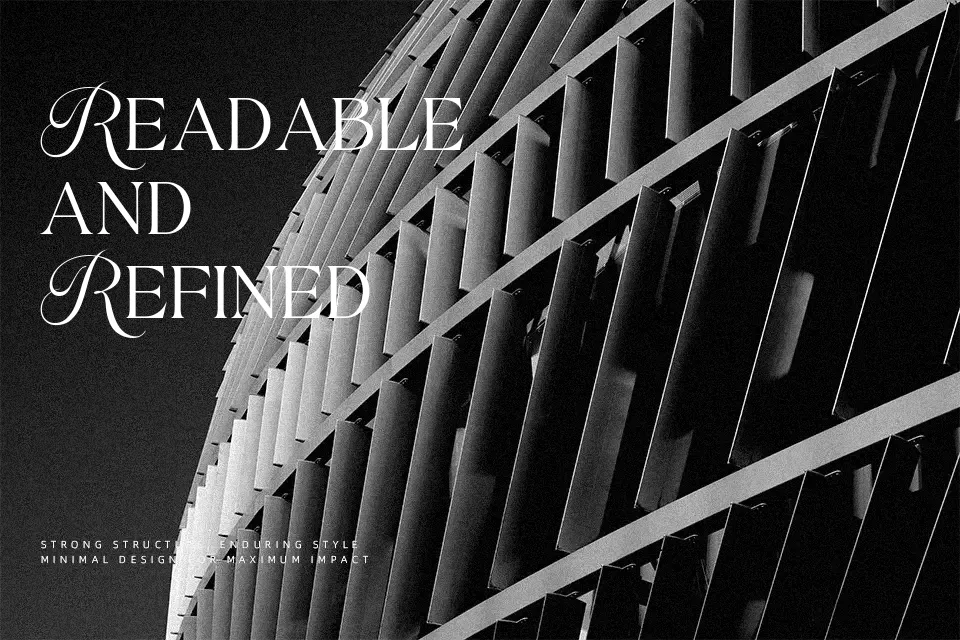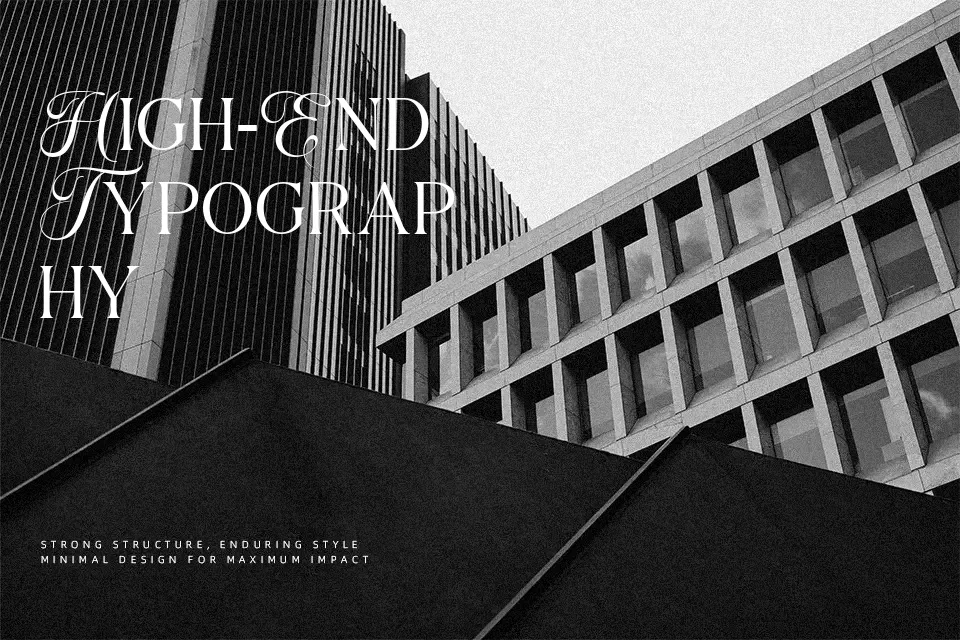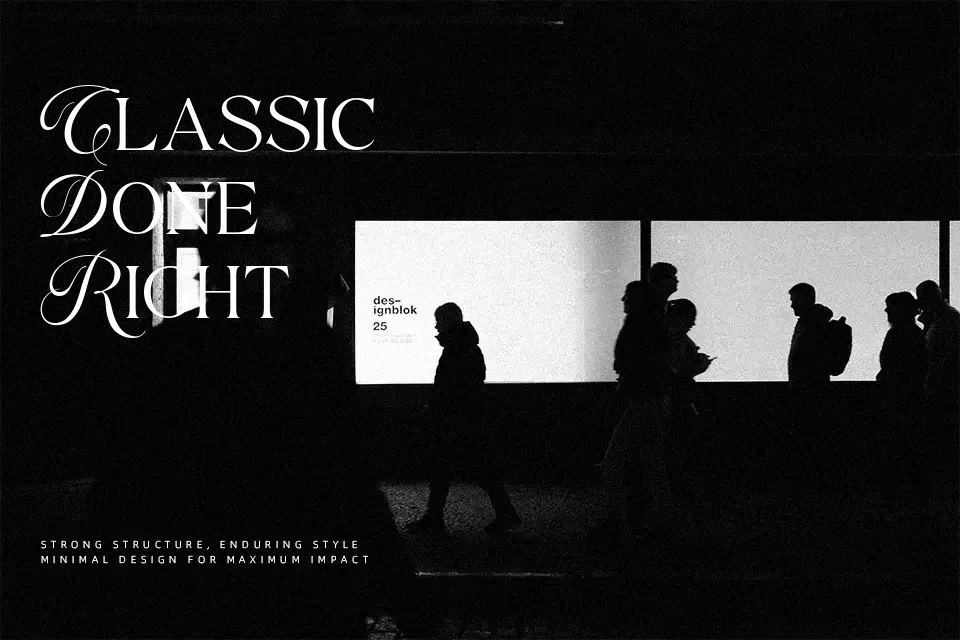
Theonory Font
Evaluating Theonory Font reveals a specialized display serif constructed with striking vertical stroke contrast and ornate cursive swashes. The letterforms showcase moderate proportions anchored by sharp serifs, paired with fluidly curved extensions that create a distinct rhythmic motion. Spacing between characters remains intentionally measured to accommodate expansive ascenders and descenders without crowding. In terms of readability, the design shines in large-scale settings like boutique brand identities, perfume labels, and fashion editorial titles. However, the intricate terminals and thin hairline strokes reduce legibility at small sizes, making the typeface poorly suited for dense paragraphs. The balanced spacing helps maintain clarity in larger headlines, ensuring the decorative forms remain crisp and articulate.
Best For: luxury perfume packaging, wedding stationery suites, boutique brand logos, fashion magazine headlines
Not Ideal For: long paragraph text, small mobile interface labels, dense financial reports, technical documentation
Perfect for headline, invitation, and logo, with a artistic and decorative style.